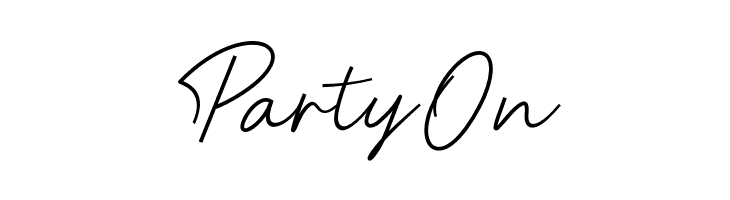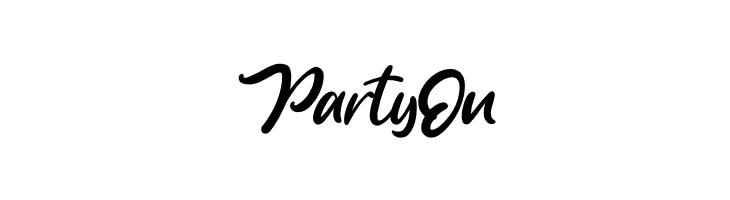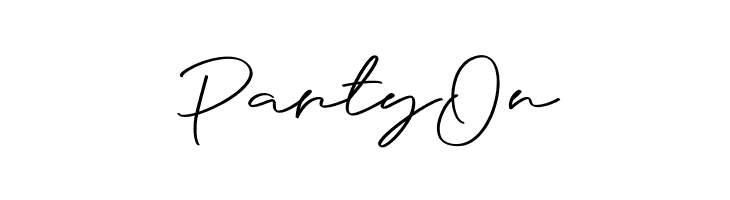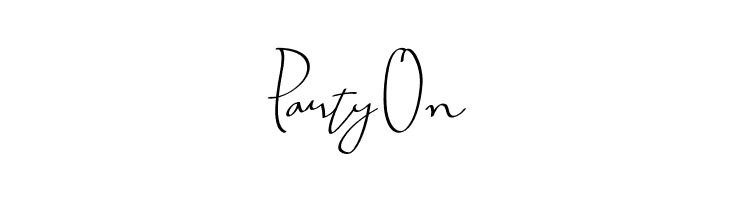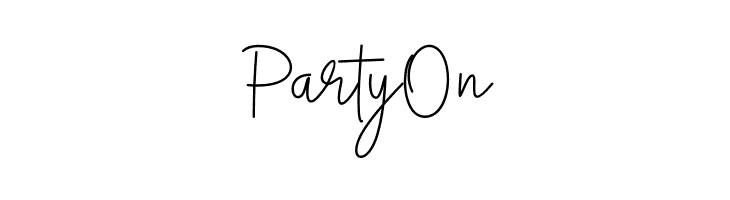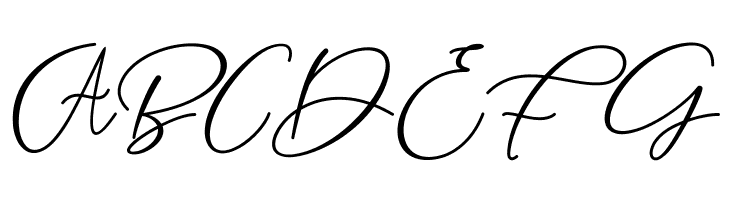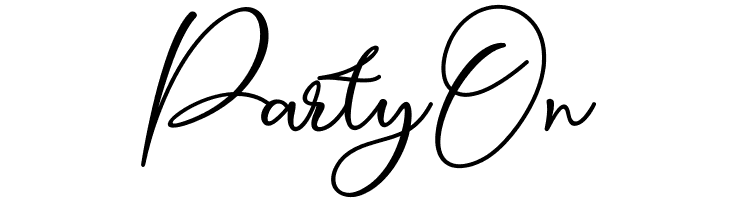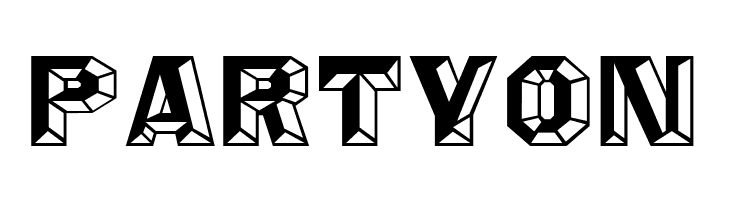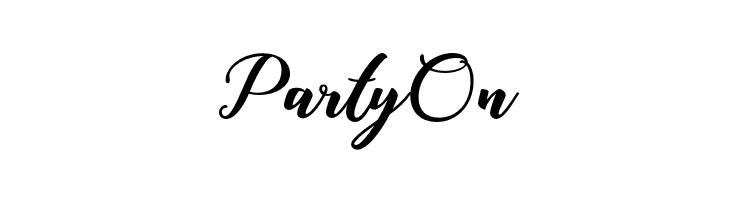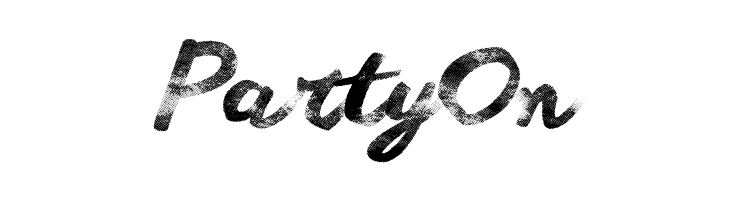
• Angles Octagon
A bold, geometric font with an angular, octagonal design and a three-dimensional effect.
• Animal Script
Elegant, handwritten script with flowing, connected strokes.
• Anisha Free Regular
An elegant script font with flowing, cursive strokes and decorative flourishes.
• Anjel Script
A graceful and elegant script font with fluid, cursive strokes.
• Anjelica Script
A flowing, cursive script font with elegant, interconnected characters.
• Anjelica Script
A flowing, elegant script font with interconnected cursive letters.
• Annila Script
A modern, elegant script font with a flowing, handwritten style.
• Another Wet Shabby
A bold, textured brush-style font with dynamic and artistic strokes.
• Anstery Script
Elegant, flowing script font with connected characters.
• Anthem Minimalism script
A minimalistic and elegant script font with a modern touch.